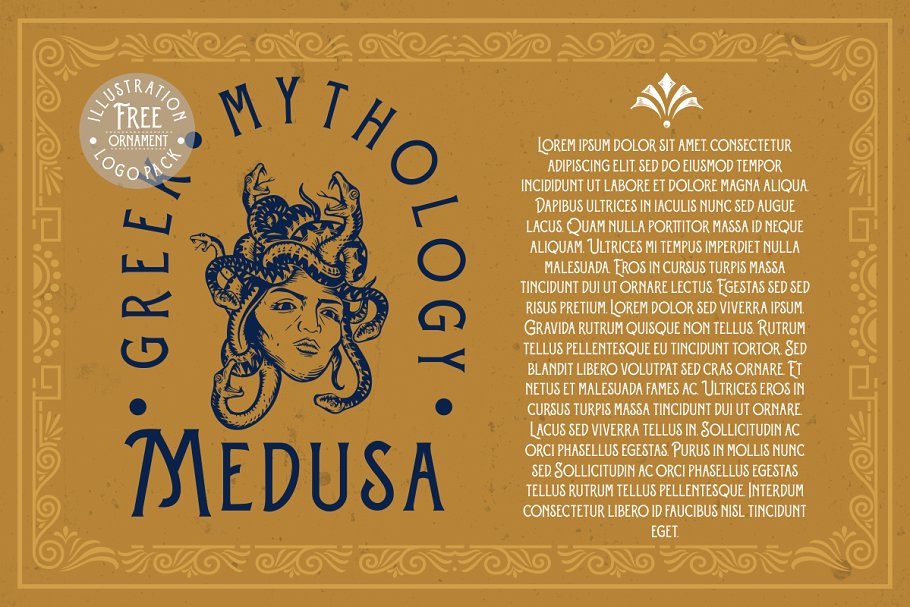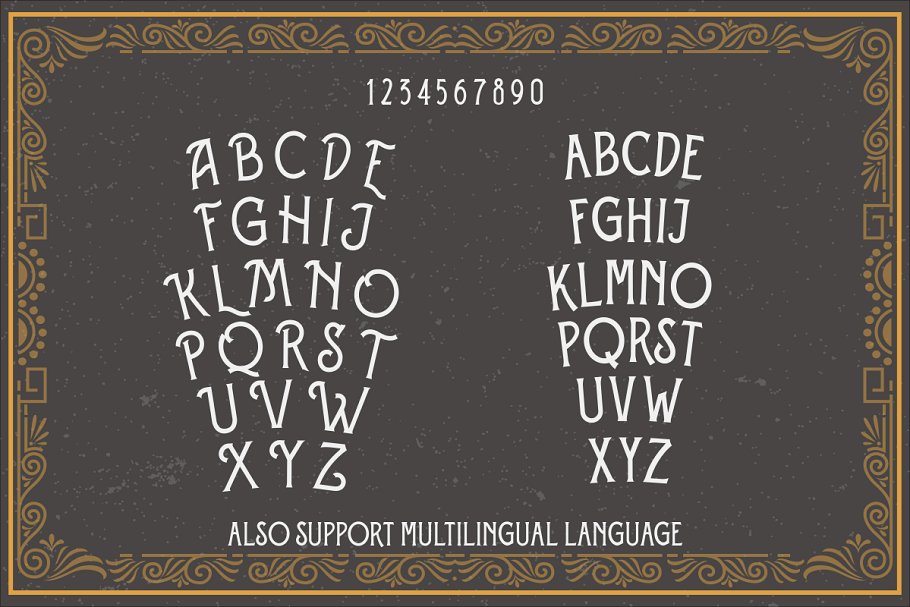
Introducing Creativemarket Eversthedin + Extras Font 4716458. Culture, myths, ornaments, all about ancient Greece and the Victorian style are the inspiration for the creation of Eversthedin. Eversthedin comes with the classic and formal impression, it will be interesting to make headlines, packaging design and vintage style logotype like a company logo, sport vintage logo, quote typography, T-shirt design. Eversthedin also includes a set of vintage vector illustrations as well as some decorative ornaments. This combination allows you to easily develop awesome vintage designs. Also Checkout Creativemarket Arquitec Font.
Eversthedin has features like Uppercase, Lowercase, Numerals, Punctuations, Alternative Characters, Ligatures, Discretionary Ligatures, Extras Ornaments, and Vintage Vector Illustration, logo pack, and Support Multilingual Characters.